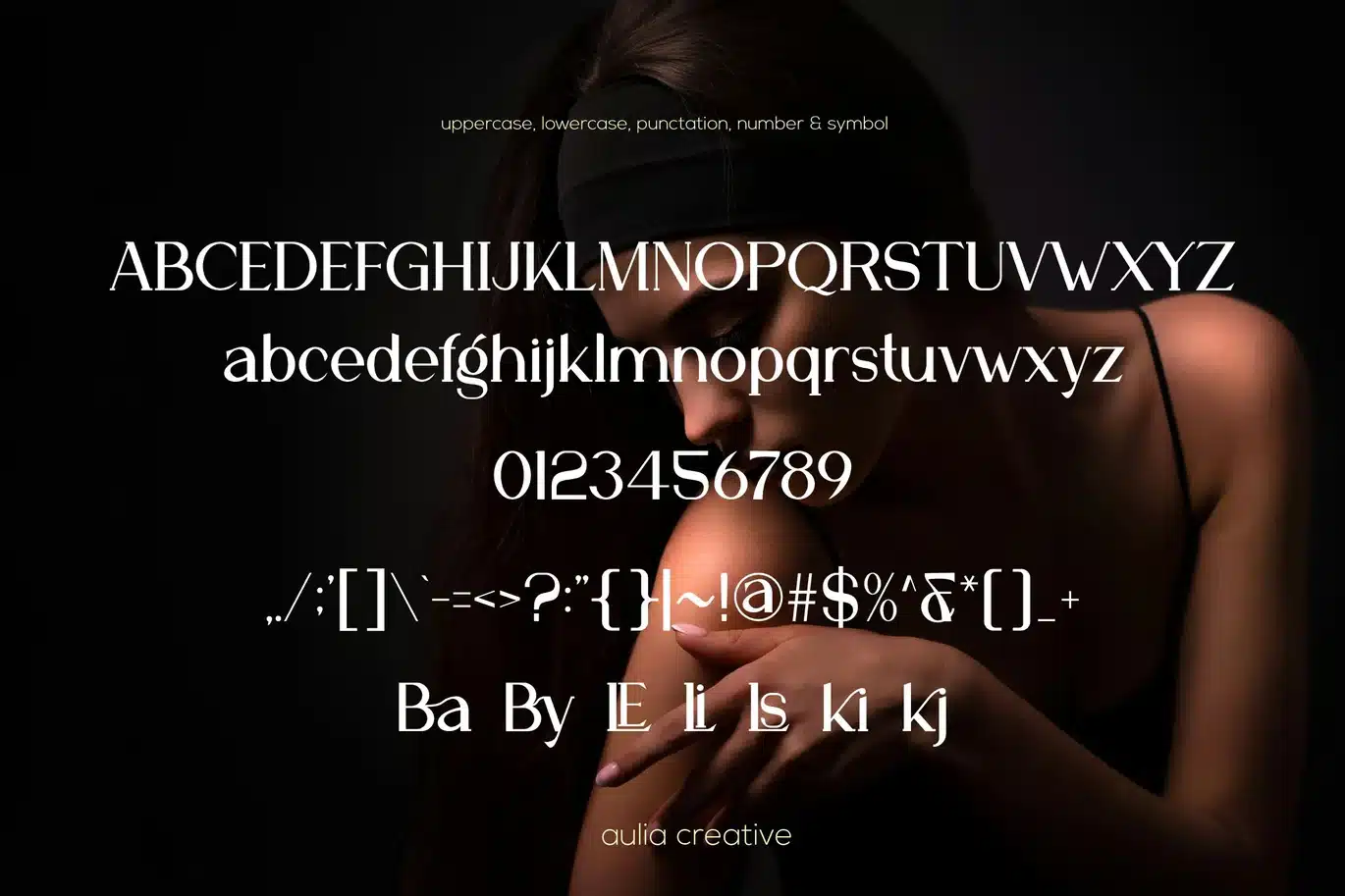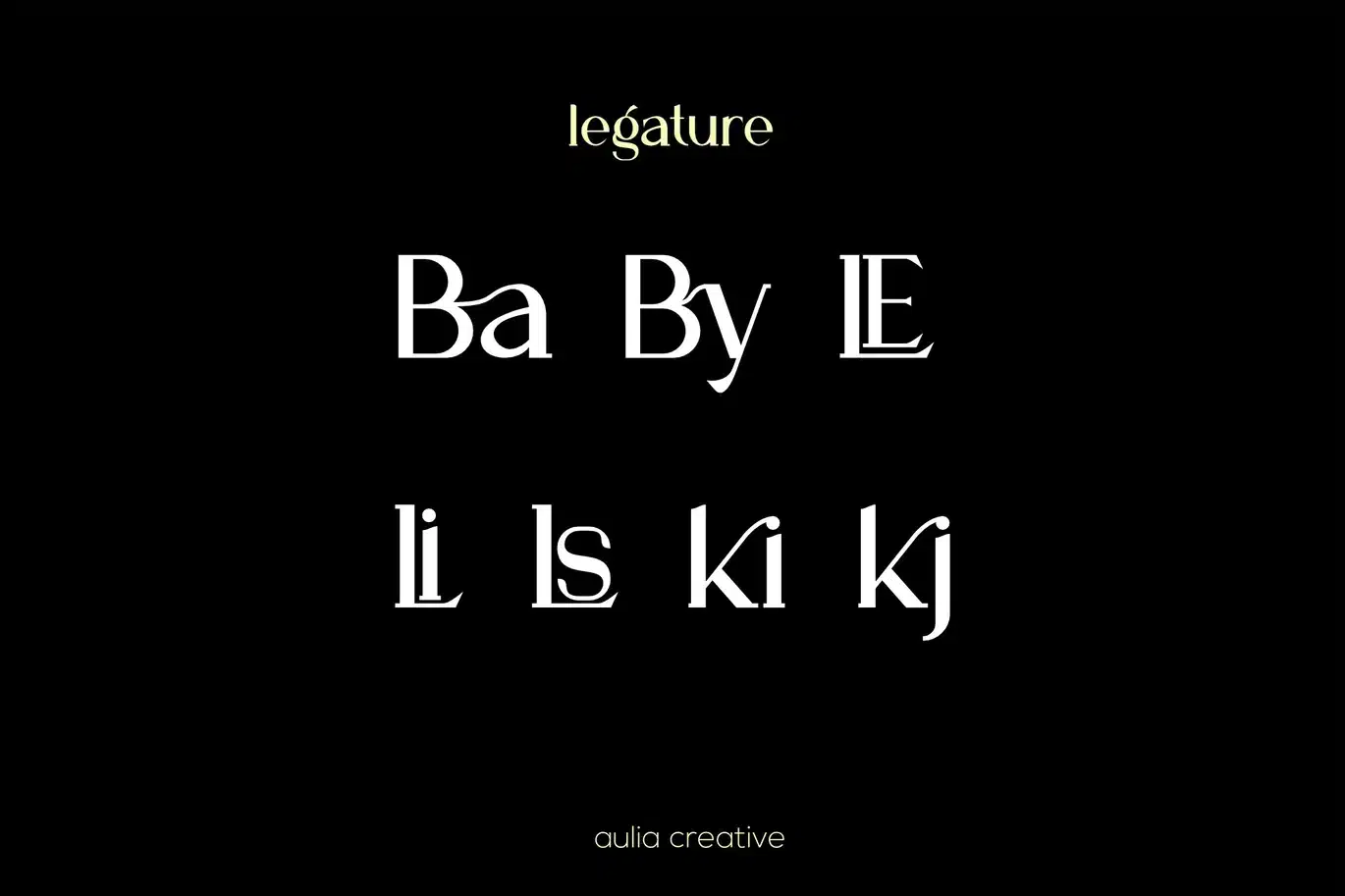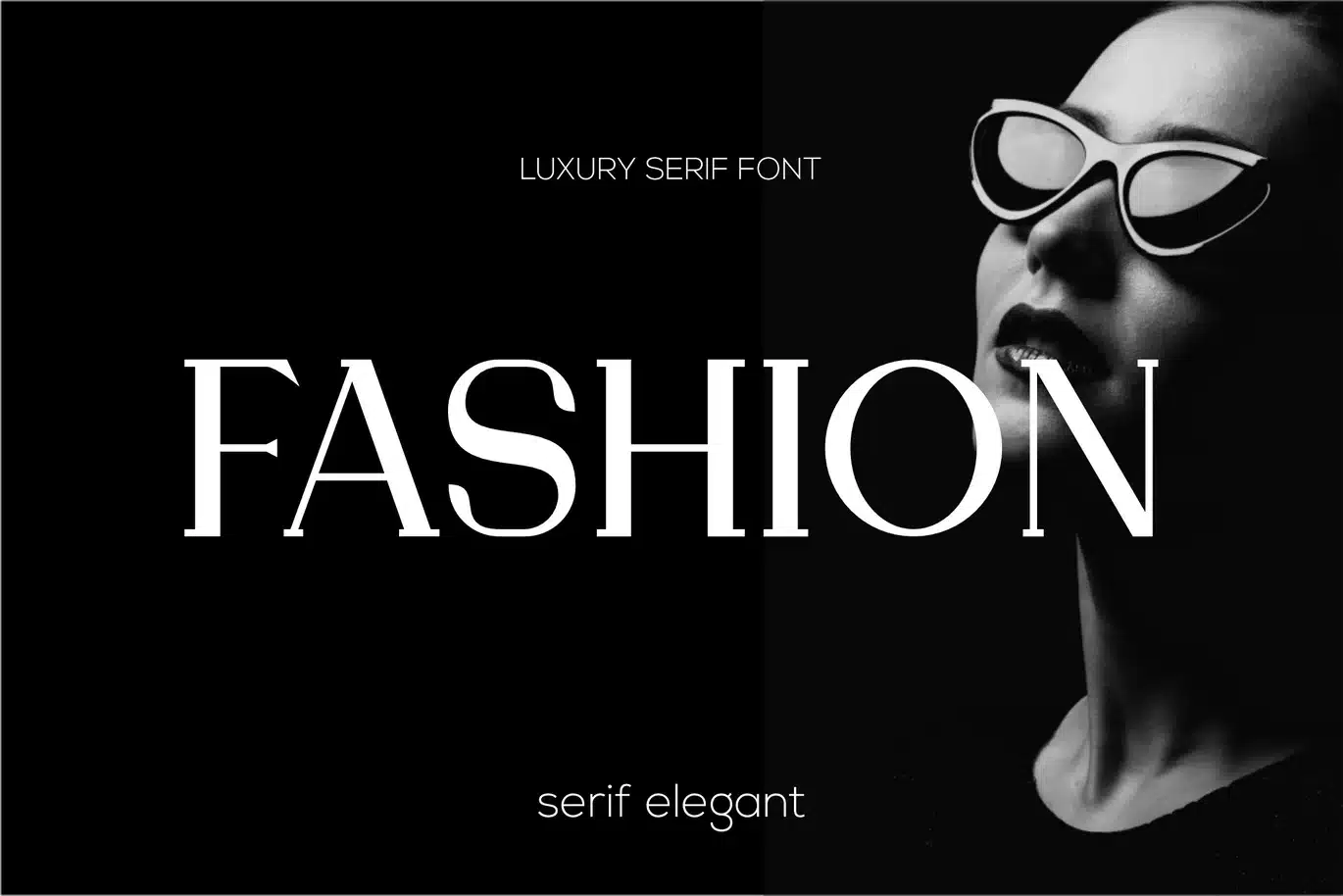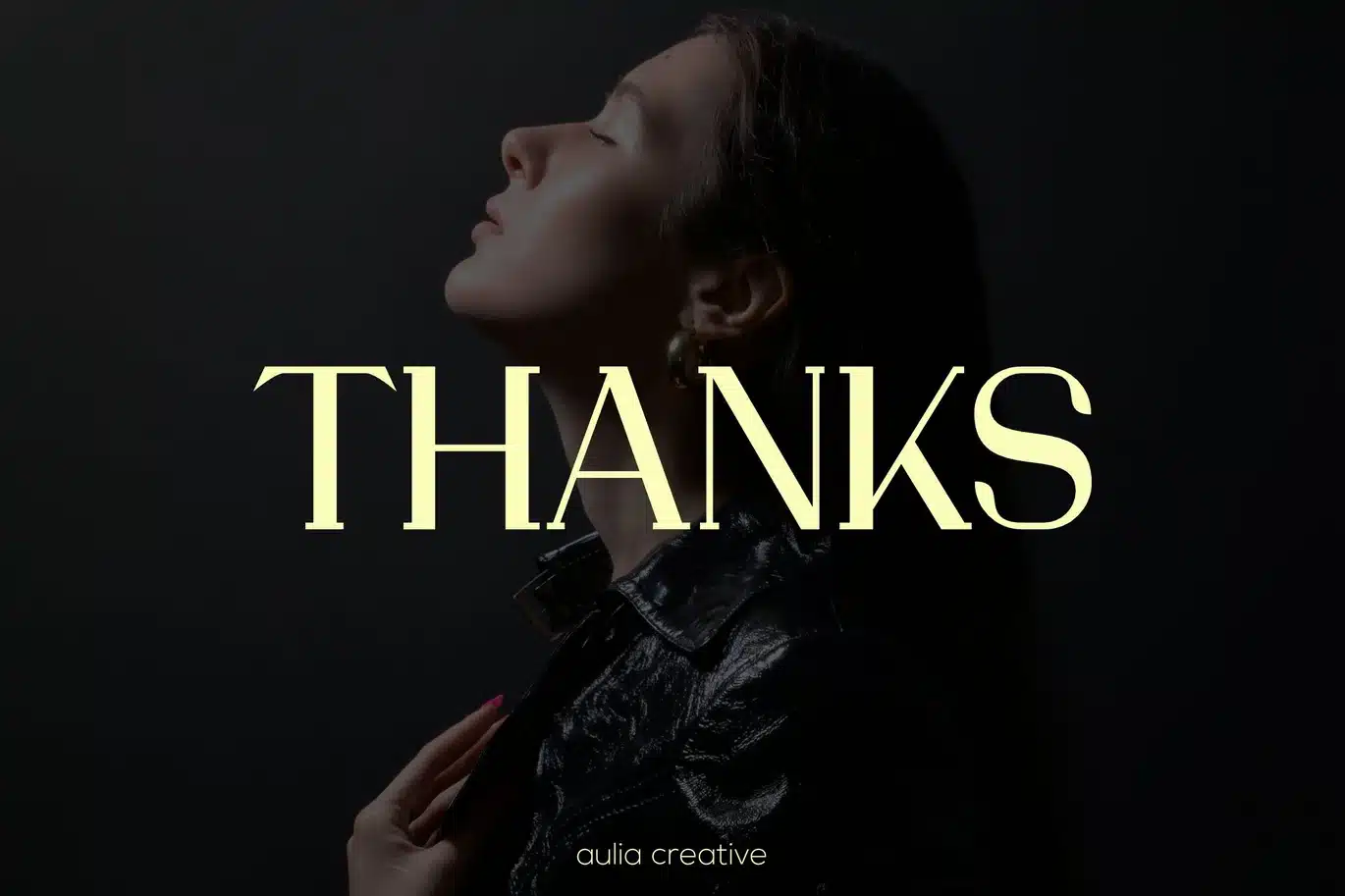
Balena – Serif Display Luxury Font
Introducing our new product Balena - Serif Display Luxury
Balena - Serif Display Luxury Font is and awesome and authentic display font.
- Number & Symbol
- UPPERCASE, lowercase
- Alternative